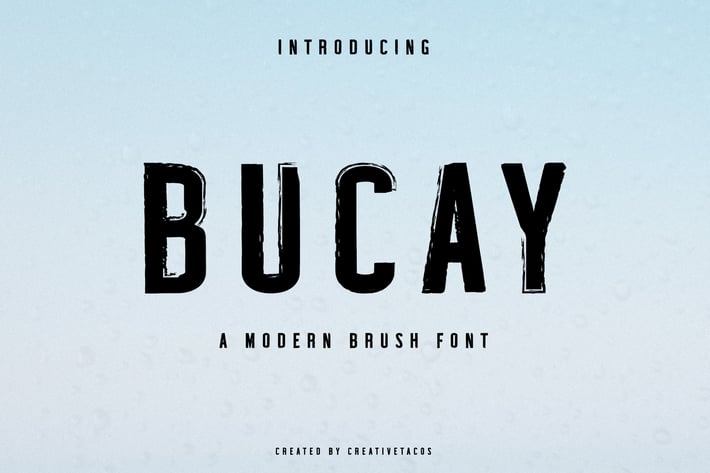
Bucay Brush Font
Introducing Bucay, a clean, innovative and modern bold brush font that will make you fall in love with its incredibly versatile style for your forthcoming projects! It contains uppercase letters, lowercase letters, numbers, punctuation, and symbols and supports multilingualism.
Bucay font is excellent for various tasks such as packaging, presentations, logos, headlines, lettering, posters, branding, quotes, titles, magazine, headings, web layouts, advertising, invitations, packaging design, books, and almost nearly any creative design.
Bucay Font Features:
- Uppercase Letters
- Lowercase Letters
- Support Multilingual